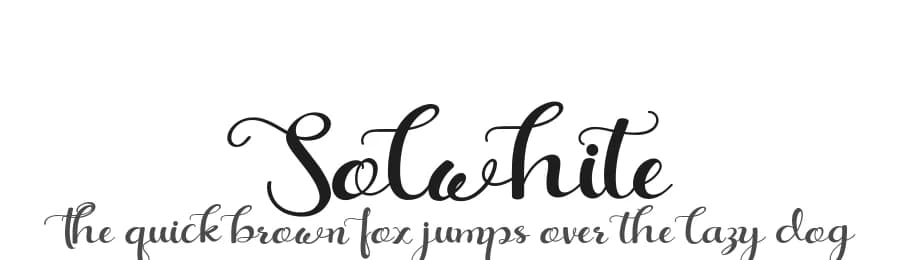
About Solwhite Font
Solwhite ships with 2 OpenType features you can switch on in apps that support them (Illustrator, InDesign, Affinity, Figma, CSS font-feature-settings).
Solwhite supports 208 languages.
Solwhite Font is a script font that shines as a display or heading face. Pair it with a clean sans-serif or serif font for body text β the contrast creates a clear hierarchy while the two styles stay balanced and easy to read.
Solwhite Font